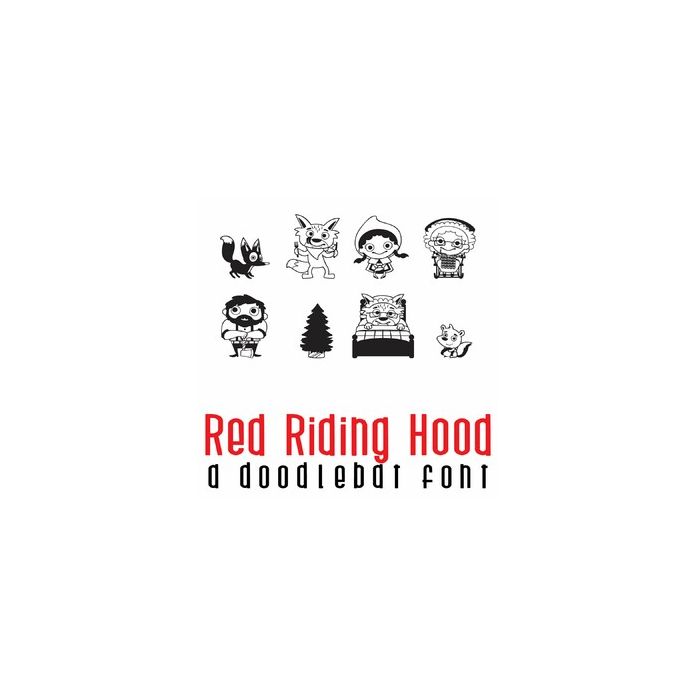
This adorable doodlebat font features 26 images from a classic fairytale. Perfect for cards, crafts, gifts, classrooms, teachers, planner stickers, parties, scrapbook pages and more!